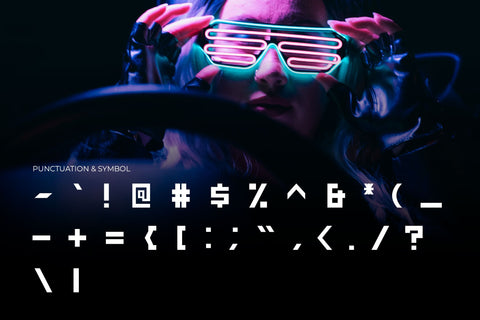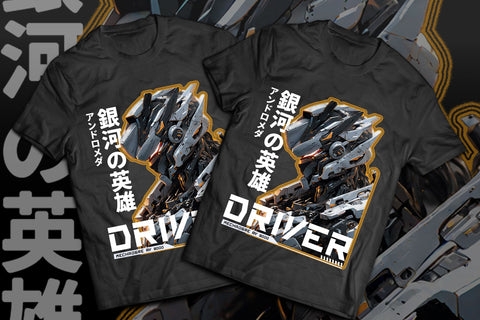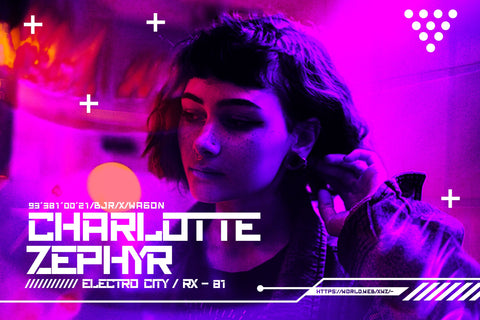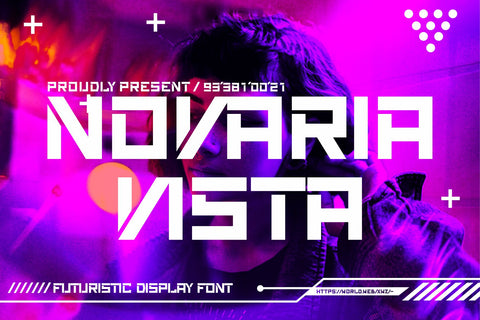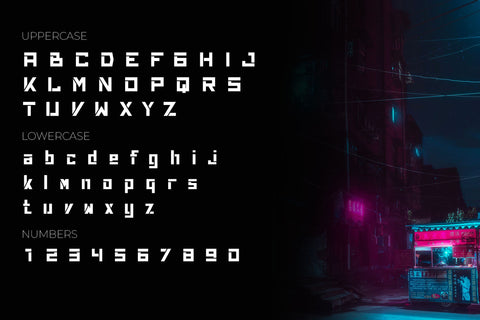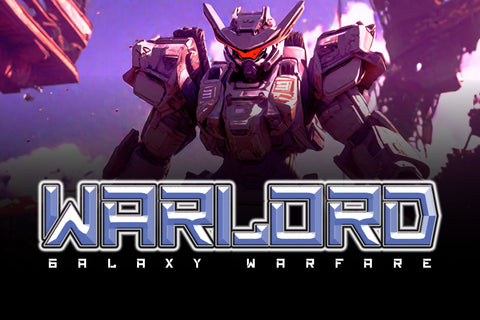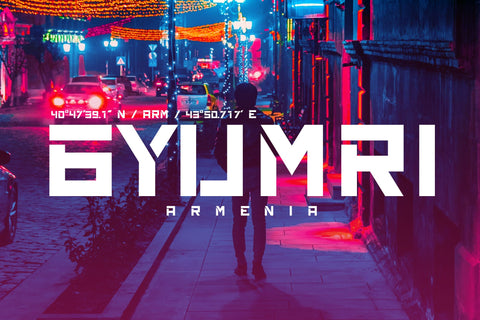
Novaria Vista - Futuristic Display Font
"Novaria Vista" is a futuristic display font. Fonts with a futuristic theme often embrace technological and forward-looking aesthetics. They are commonly used in various design projects that aim to convey modernity, innovation, and a vision of the future.